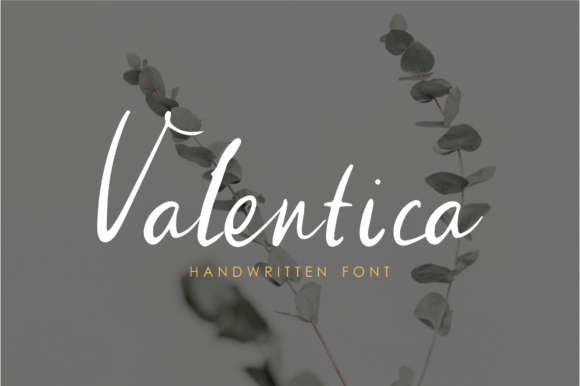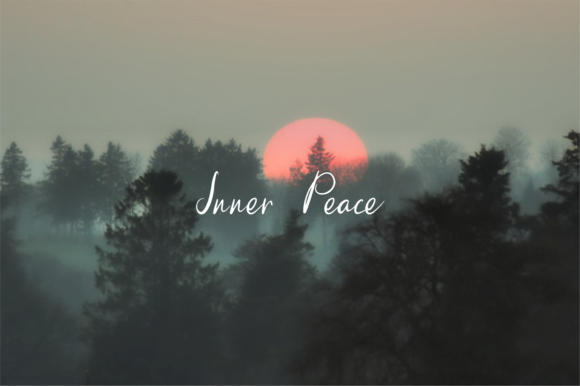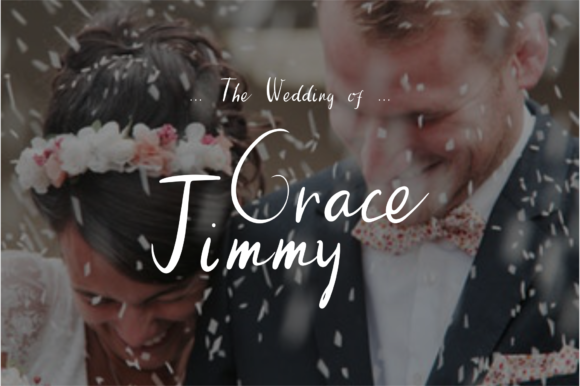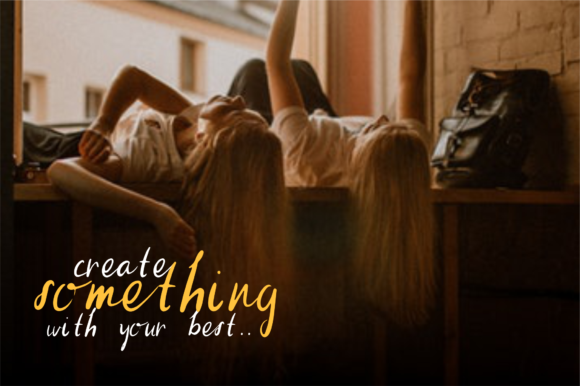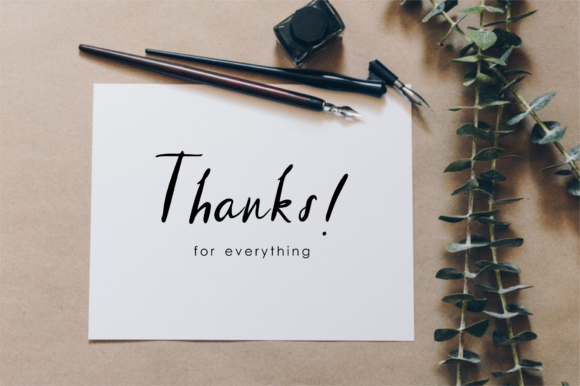
Valentica Font
About Valentica Font
The Valentica is an amazing handwritten font. It’s perfect for wedding invitations, labels, signature, posters, quotes, blog posts, social media and more.